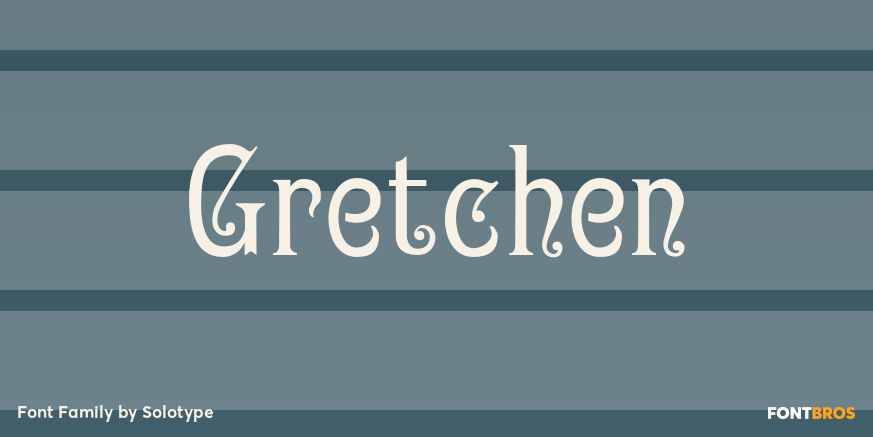
About Gretchen
Apparently original with the Lindsay brothers type foundry in New York shortly before they were merged into the American Type Founders Company. A few characters of the original font have been modified slightly to make them more harmonious with the rest…